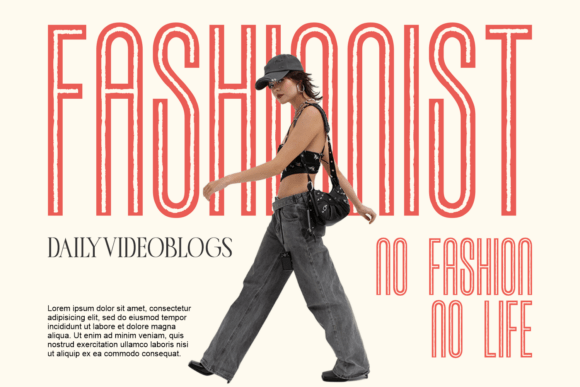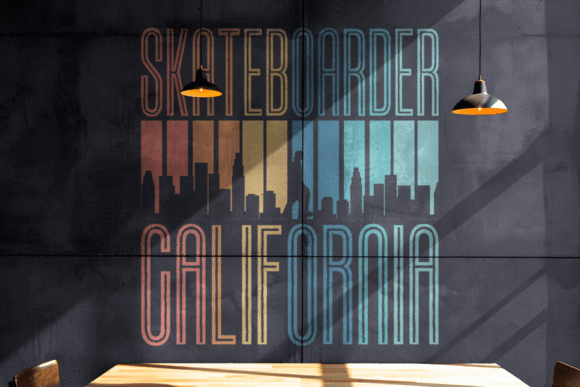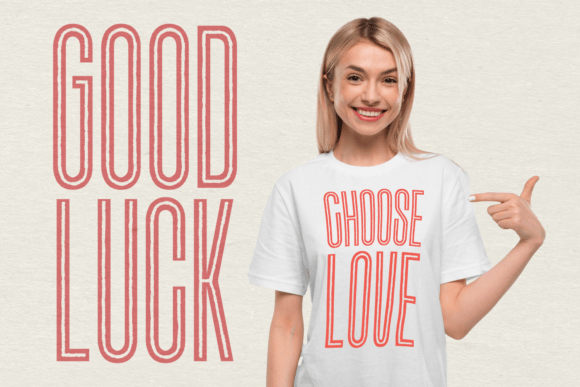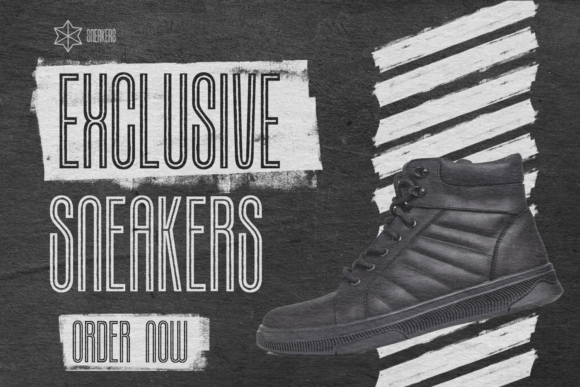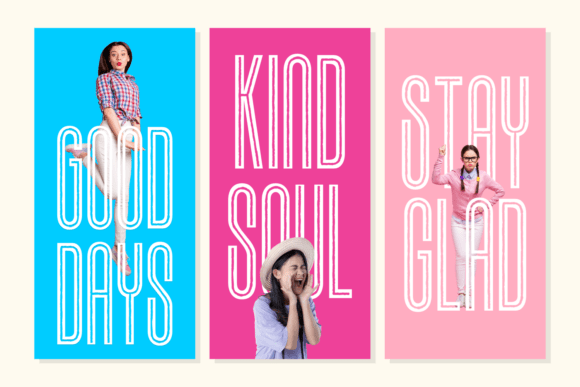
Reaching Font
Reaching is a unique and elegant sans-serif font with an extended, outlined design. Its tall and narrow letterforms create a modern, sophisticated look, making it perfect for branding, posters, headlines, and stylish editorial layouts. The subtle textured detailing adds a touch of charm, giving it a handcrafted yet contemporary feel. Whether you’re designing for luxury, fashion, or minimalist aesthetics, Reaching makes a bold statement.